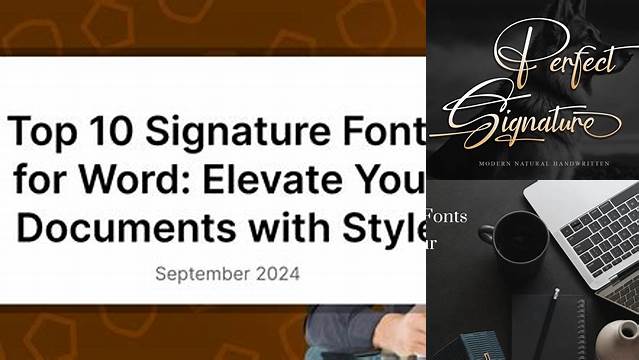
Free Signature Fonts: Top 10 Downloads
Hey there, design enthusiasts! Are you looking to add a touch of elegance, personality, and a handwritten feel to your projects? Signature fonts are a fantastic way to achieve just that. They can instantly transform your designs, making them more personal and engaging. Whether you're working on logos, invitations, social media posts, or any creative endeavor, the right signature font can make all the difference. Today, we're diving into the top 10 signature fonts that you can download for free. Get ready to discover some amazing typefaces that will help you make your mark!
Why Signature Fonts Matter
Before we get into the fonts themselves, let's talk about why signature fonts are so popular and effective. These fonts mimic the look of real handwriting, which has a powerful psychological effect. It adds a human touch, making your designs feel more authentic and approachable. Think about it – a handwritten note feels more special than a typed one, right? The same principle applies to design. Signature fonts can:
- Increase Brand Personality: They help to convey the unique character of your brand, making it more memorable.
- Enhance Visual Appeal: Signature fonts bring a sense of sophistication and creativity to your projects.
- Create a Personal Connection: They make your audience feel like they're interacting with something genuine and personal.
When used correctly, signature fonts can significantly boost the impact of your design. They're perfect for a wide range of applications, from branding and marketing materials to personal projects like wedding invitations and greeting cards. Finding the right font is key, so let's explore some of the best free options available!
Signature fonts are a really awesome tool in a designer's toolkit, adding that human touch and personal flair that makes your work stand out. It's like giving your designs a handwritten note feel, and who doesn't love that? They're perfect for a bunch of different projects, from making your brand feel more authentic to crafting personal invitations that feel extra special. The whole point is to make your audience feel like they're connecting with something real and genuine. Using the right signature font can seriously up the ante of your design game, making your stuff more memorable and engaging. And guess what? You don’t have to break the bank to get your hands on some killer fonts. There are tons of free options out there, each with its own unique style and personality. So, let's dive into the top 10 signature fonts you can download right now and start creating some awesome stuff!
Top 10 Free Signature Fonts to Download
Alright, guys, let's get to the good stuff! Here are the top 10 free signature fonts that you can download right now. Each one brings its own unique style to the table, so you're sure to find a few that fit your aesthetic. I will give you a brief description of each font, along with some ideas on how to best use them.
- Great Vibes: This font is all about elegance and grace. It's a beautiful, flowing script that's perfect for wedding invitations, feminine branding, and anything that needs a touch of sophistication. Great Vibes is an amazing choice when you want to infuse your designs with a sense of class and timeless beauty. Its fluid strokes and delicate curves give off a feeling of elegance, making it super useful for projects where you want to convey sophistication. Think of wedding invitations, high-end branding, or any project that needs a dash of elegance. It's the go-to when you want to make your designs look effortlessly chic.
- Dancing Script: As the name suggests, this font has a playful and lively feel. It's a great choice for adding a touch of fun and informality to your designs. Dancing Script is perfect for social media graphics, casual invitations, and anything that needs a bit of movement and energy. It's like giving your text a little dance party! It's a go-to choice when you're looking to add a touch of energy and fun to your designs. This font is all about embracing the unexpected, with its bouncy letters and dynamic flow that brings a smile to your face. It's like your words are doing a little dance on the page! Dancing Script is ideal for projects like social media posts, casual invitations, or anything that needs a bit of personality and a dash of informality. It's all about creating a design that feels alive and engaging, making it a perfect pick when you want to make your audience feel excited and involved.
- Yellowtail: If you want a font that's bold and modern, Yellowtail is a great option. It has a distinctive, slightly quirky style that's perfect for logos, headlines, and short text snippets. Yellowtail is the bold and confident choice for projects that demand attention. This font is like a splash of sunshine, with its distinctive, slightly quirky style that's all about making a statement. It's perfect for logos, headlines, and any short text snippets where you want to grab eyeballs. Yellowtail isn't afraid to stand out, bringing a modern and energetic vibe to your designs. It's perfect for projects that require a touch of personality and a strong visual impact.
- Brush Script MT: A classic brush font that's perfect for a wide range of projects. It has a vintage feel that works well for logos, posters, and retro-themed designs. Brush Script MT is an oldie but a goodie, bringing a vintage feel to any project you're working on. It is like adding a touch of retro charm to your designs. This font is an amazing option for logos, posters, and any retro-themed projects that you want to make a statement with. It is super useful for a wide range of design projects where you want a classic and slightly worn look.
- Sacramento: Simple, elegant, and versatile. Sacramento is a great choice for a clean and modern look. It works well for branding, headings, and short text. Sacramento is your go-to font for a clean, modern look that's simple, elegant, and super versatile. It's like the Swiss Army knife of fonts, perfect for a variety of projects. It's the font you reach for when you want your text to be clear, readable, and stylish. Perfect for a wide range of applications, from branding and headings to short text snippets. It gives your designs a contemporary edge while still maintaining a sense of sophistication.